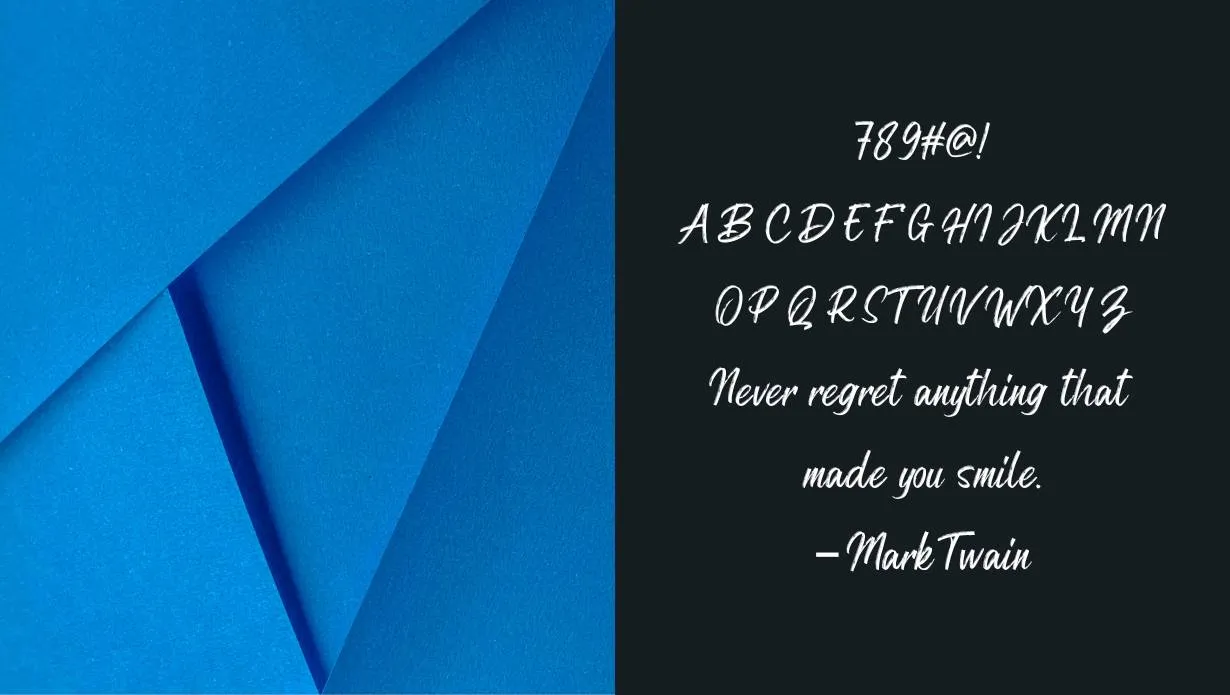
Butteries Font is a beautiful and unique brush font created by designer Mr. Butterworth. The font comes in 12 different weights and file formats including TTF, OTF, and WOFF. The Font was released on October 10th, 2020, and is currently available for purchase from the foundry’s website.
Some of the unique features of this font include its 12 different weights, which make it perfect for both display and body text. The font also includes a set of 48 alternate characters, allowing you to create unique looks for your designs.
Butteries Font Family